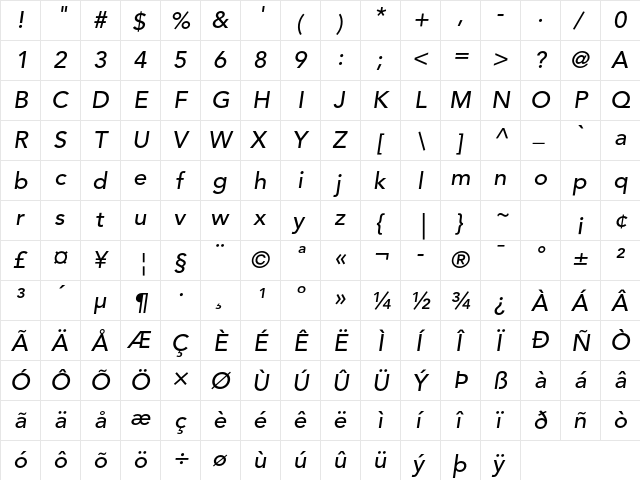
Avenir LT Std 65 Medium Oblique
| Designer | Adrian Frutiger |
Design Context for Avenir LT Std Typeface
Avenir LT Std takes a measured approach to typography — its balanced proportions and neutral character make it a reliable workhorse for both digital and print work. The slanted form adds forward momentum and visual energy. The delicate stroke weight brings airiness and refinement to layouts.
Pro Tip: Use Avenir LT Std for emphasis, pull quotes, and subheadings where its slanted energy can add rhythm to the layout.